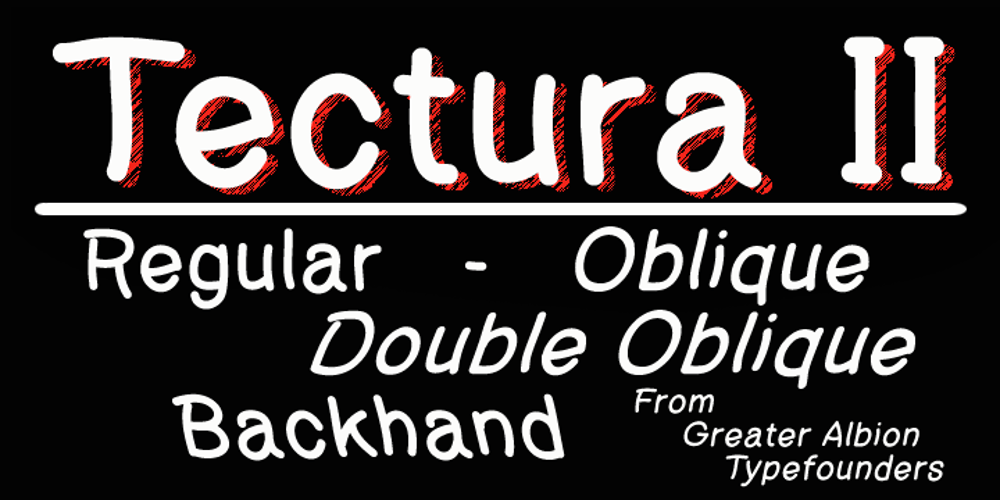
Tectura II Font Family was designed by Paul James Lloyd and published by Greater Albion Typefounders. Tectura II contains 4 styles and family package options. Tectura II is Greater Albion’s answer to the infamous Comic Sans. It’s a family of four ‘hand printed’ typefaces that provides our very own answer to the infamous ‘Comic Sans’, and follows on from one of our early release ‘Tectura’. Tectura II offers a distinctive blend of hand written character with legibility.